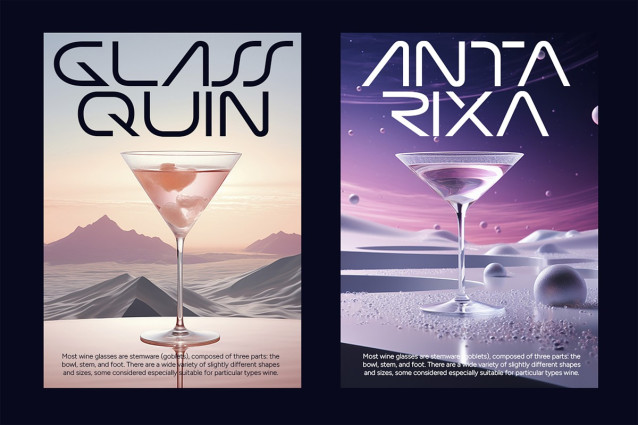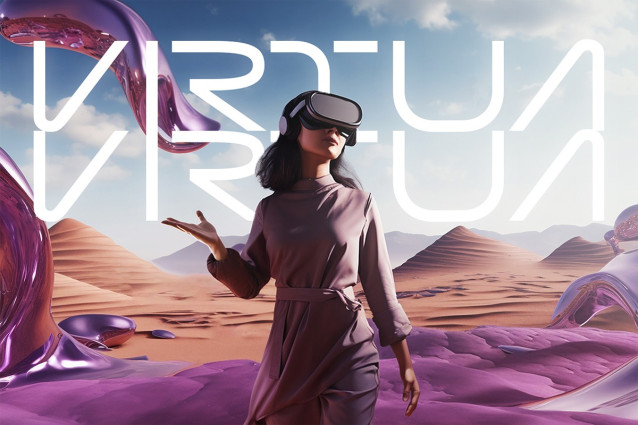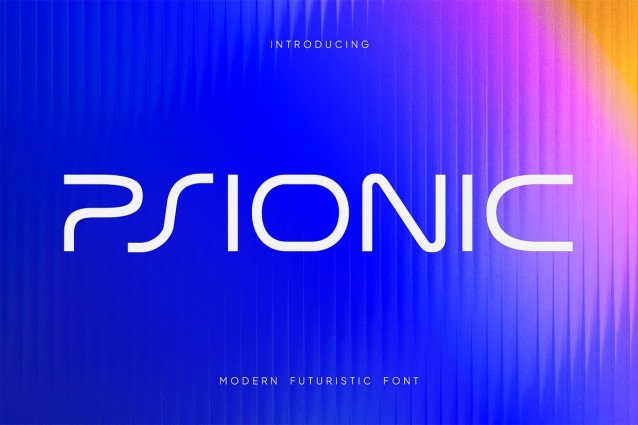
Psionic Futuristic Font
Psionic Futuristic Font, a cutting-edge display typeface designed for the modern age. Inspired by sci-fi aesthetics, future energy, and sleek technology, PSIONIC delivers a bold, futuristic look perfect for high-tech branding, movie titles, EV car designs, and digital merchandise.
With sharp angles, geometric precision, and a tech-forward appeal, PSIONIC is built to make an impact. Whether you’re designing for films, gaming, esports, or social media, this font brings a next-gen feel to any project.